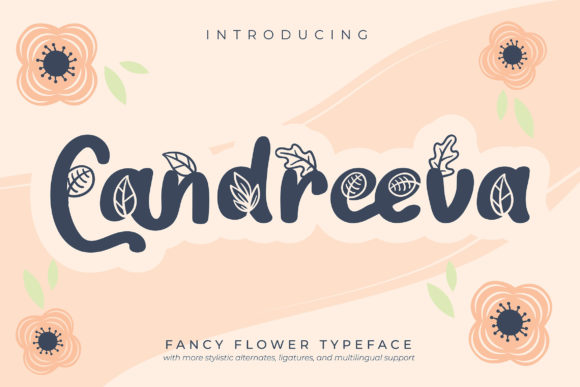
Candreeva Font: Add a Touch of Autumn Elegance to Your Designs
As the seasons change and fall arrives, designers and crafters are on the lookout for typography that captures the essence of this cozy time of year. If you’re searching for a font that embodies the warmth and beauty of autumn, look no further than Candreeva Font. This stunning decorative font features leaves as ornaments, making it the perfect addition to your fall designs.
What is Candreeva Font?
Candreeva Font is a unique and visually striking typeface that combines elegant lettering with intricate leaf designs. The font’s creator has carefully crafted each character to incorporate leaf motifs, giving it a distinctly autumnal feel. The result is a beautiful and eye-catching font that’s sure to elevate your designs and make them stand out.
Key Features of Candreeva Font
- Decorative Leaf Ornaments: The standout feature of Candreeva Font is its use of leaf ornaments. Each character is adorned with delicate leaves, adding a touch of natural beauty to your designs.
- Autumnal Theme: The font’s leaf motifs give it a distinctly fall theme, making it perfect for seasonal designs, such as Thanksgiving cards, Halloween invitations, and fall-themed crafts.
- Elegant Lettering: Candreeva Font features elegant, cursive lettering that’s perfect for creating sophisticated and eye-catching designs.
- Versatile: This font is versatile and can be used for a wide range of design projects, from digital graphics to print materials.
How to Use Candreeva Font in Your Designs
Candreeva Font is perfect for designers and crafters who want to add a touch of autumn elegance to their work. Here are some ideas for using this beautiful font:
- Fall-themed Invitations: Use Candreeva Font to create stunning fall-themed invitations for parties, events, and holidays.
- Seasonal Graphics: Add a touch of autumn charm to your social media graphics, blog posts, and website headers with this beautiful font.
- Thanksgiving and Halloween Crafts: Candreeva Font is perfect for creating handmade crafts, such as Thanksgiving cards, Halloween decorations, and fall-themed DIY projects.
- Autumn-inspired Stationery: Use this font to create beautiful autumn-inspired stationery, including journals, planners, and greeting cards.
Tips for Getting the Most out of Candreeva Font
To make the most of Candreeva Font, here are some tips:
- Experiment with Colors: The font’s leaf motifs look stunning in warm autumn colors, such as orange, yellow, and red. Experiment with different color combinations to find the perfect look for your design.
- Mix and Match with Other Fonts: Candreeva Font pairs beautifully with other fonts, especially serif and sans-serif fonts. Try mixing and matching it with other fonts to create a unique look.
- Use it for Headlines and Titles: The font’s decorative leaf ornaments make it perfect for headlines and titles. Use it to add a touch of elegance and sophistication to your designs.
Candreeva Font is a beautiful and unique decorative font that’s perfect for adding a touch of autumn elegance to your designs. With its intricate leaf motifs and elegant lettering, this font is sure to make your fall designs come alive. Whether you’re a designer, crafter, or DIY enthusiast, Candreeva Font is a must-have for your typography collection.